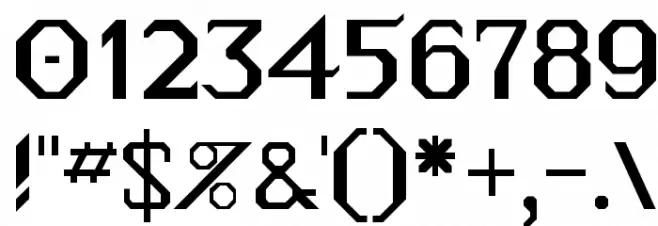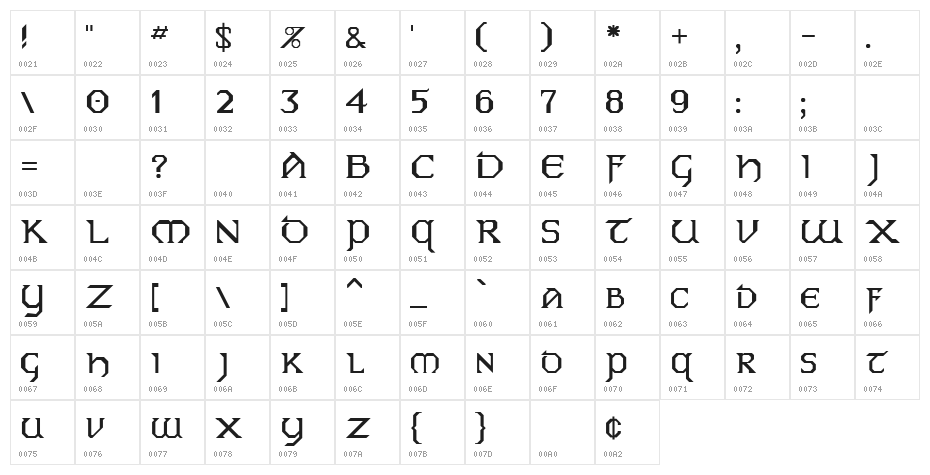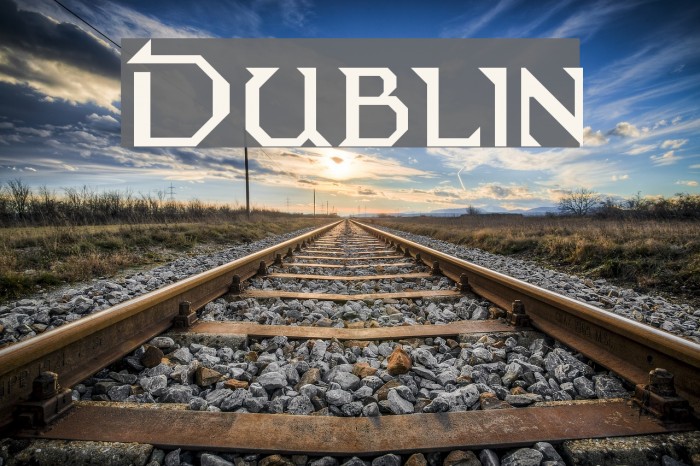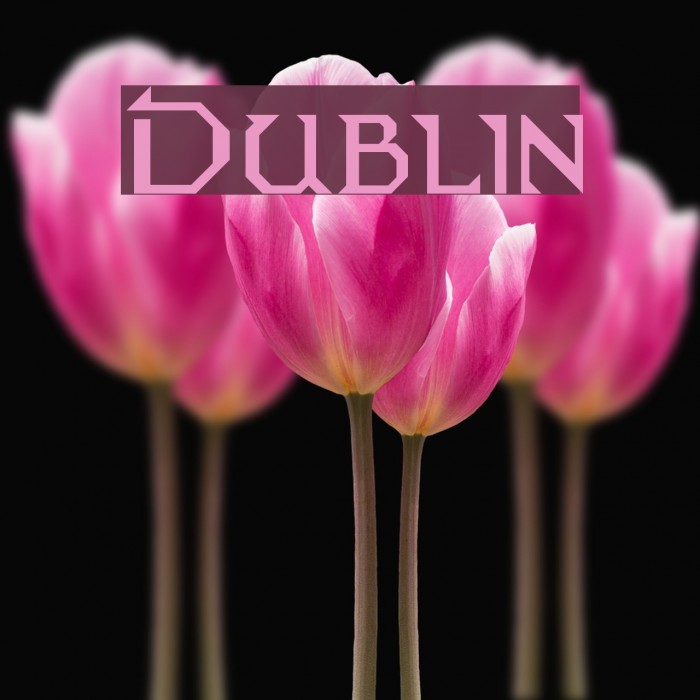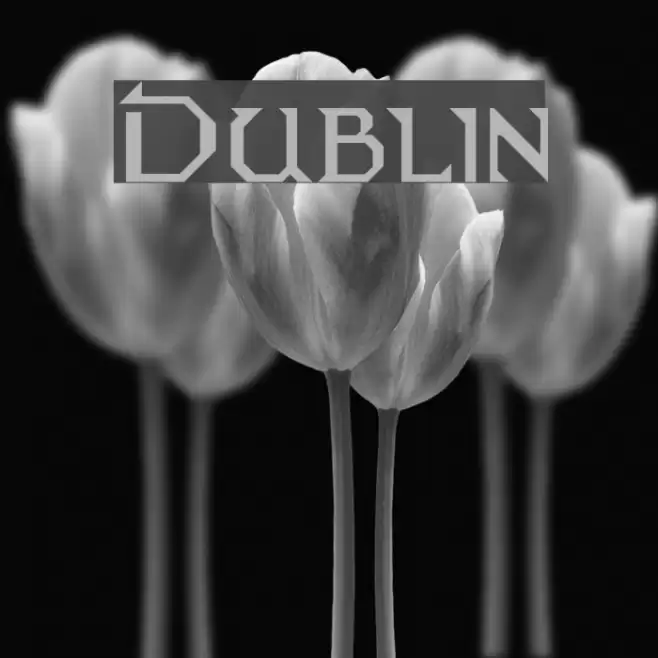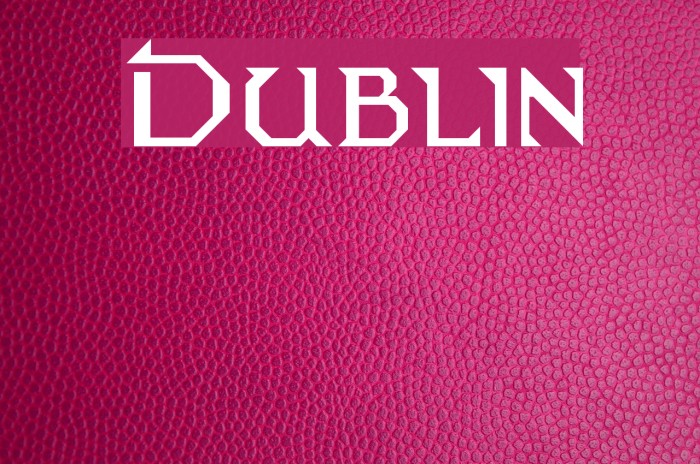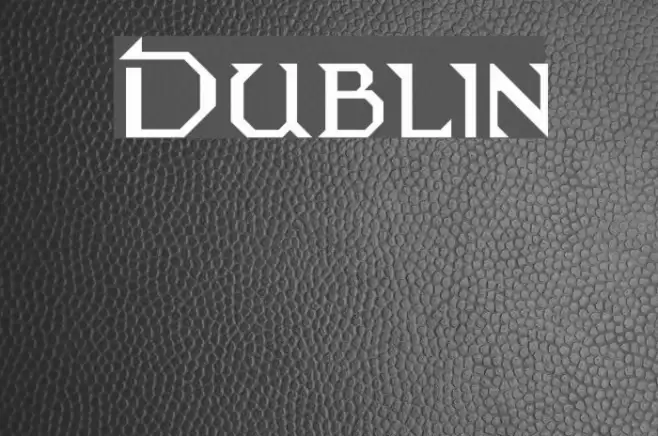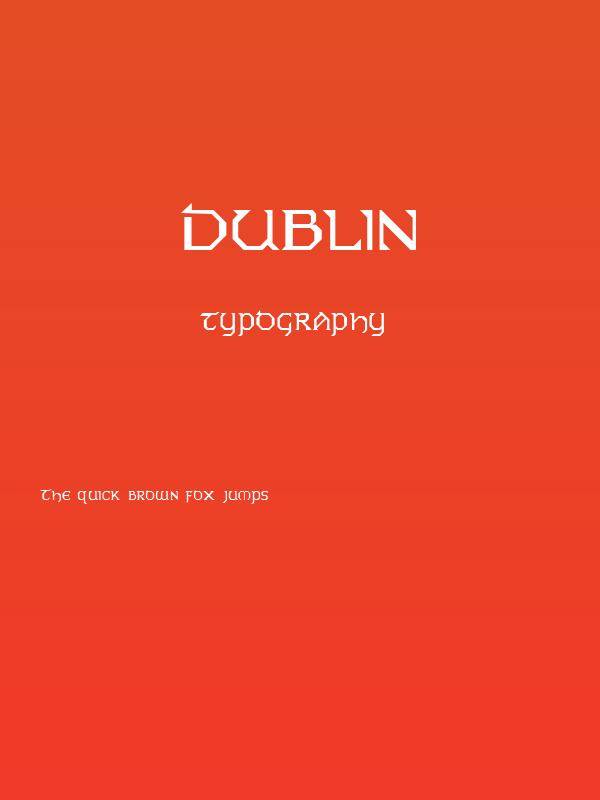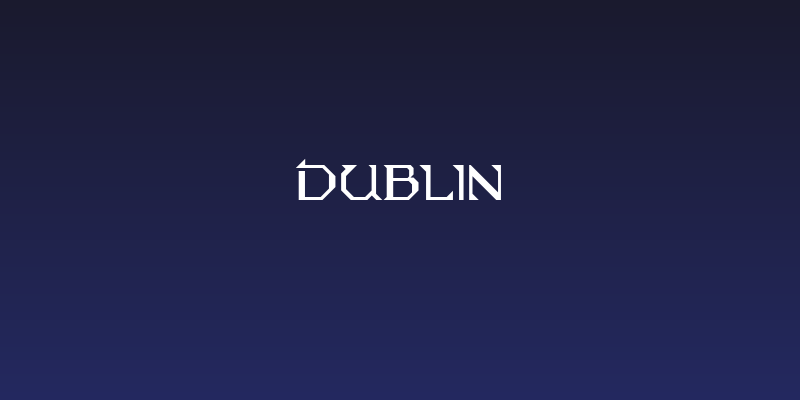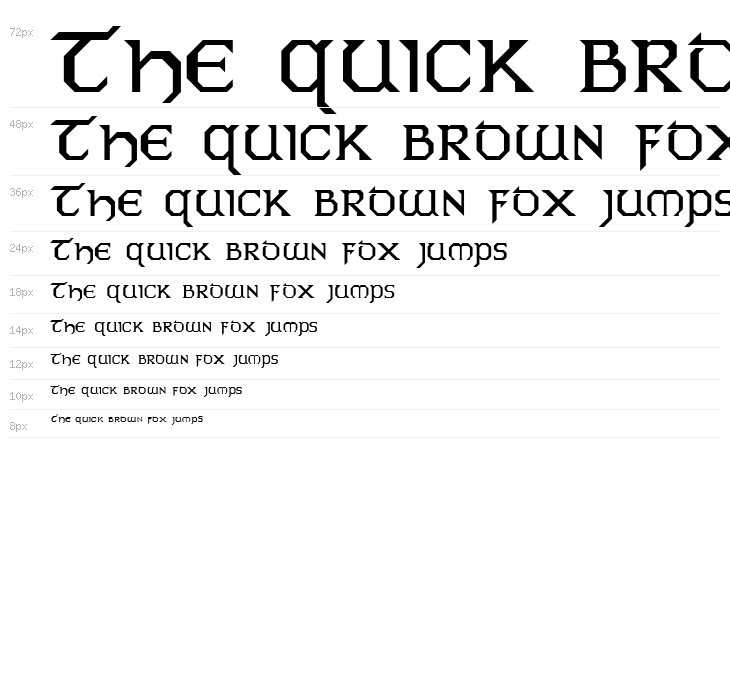
Dublin Font
Dublin Description
This font exhibits a bold and angular style, reminiscent of traditional blackletter typefaces but with a modern twist. The characters are sharply defined with geometric precision, featuring pointed edges and a consistent stroke width that conveys strength and stability. The uppercase and lowercase letters maintain a uniform design, enhancing readability while preserving the decorative essence. Numbers and special characters are crafted with the same attention to detail, ensuring a cohesive look across all text elements. The font's unique style makes it suitable for projects that require a blend of historical and contemporary aesthetics.